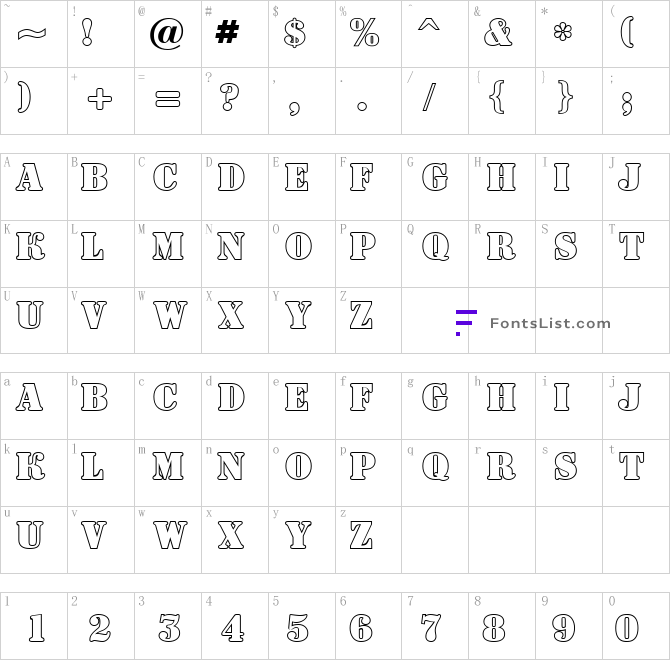
- Font Name:a_SignboardTitulOtl
a_SignboardTitulOtl.ttf is a very beautiful artistic font, a_SignboardTitulOtl.ttf is widely used in the design and printing of various books and pictures,a_SignboardTitulOtl.ttf has a strong visual impact,a_SignboardTitulOtl.ttf is a commonly used font in newspapers, magazines and books, and is used in posters, e-commerce Poster design, store design, logo design, font design and other fields.a_SignboardTitulOtl.